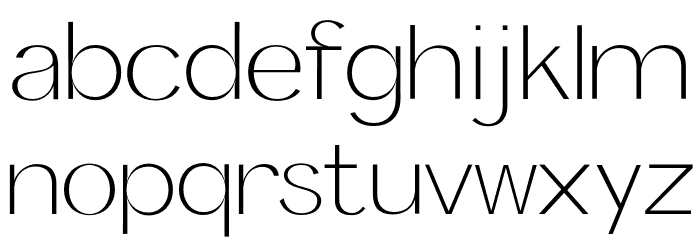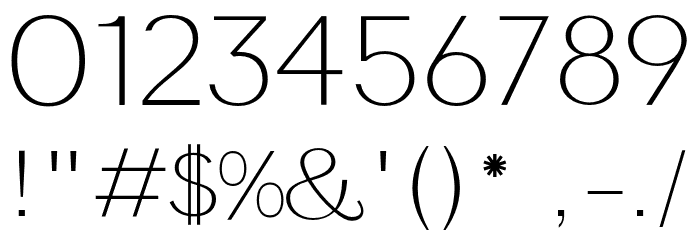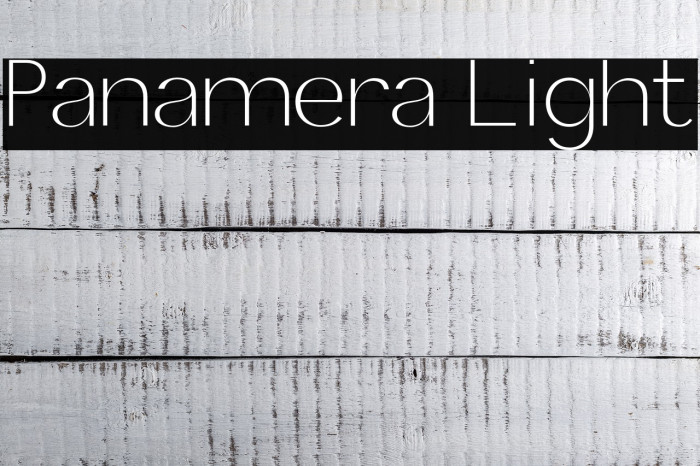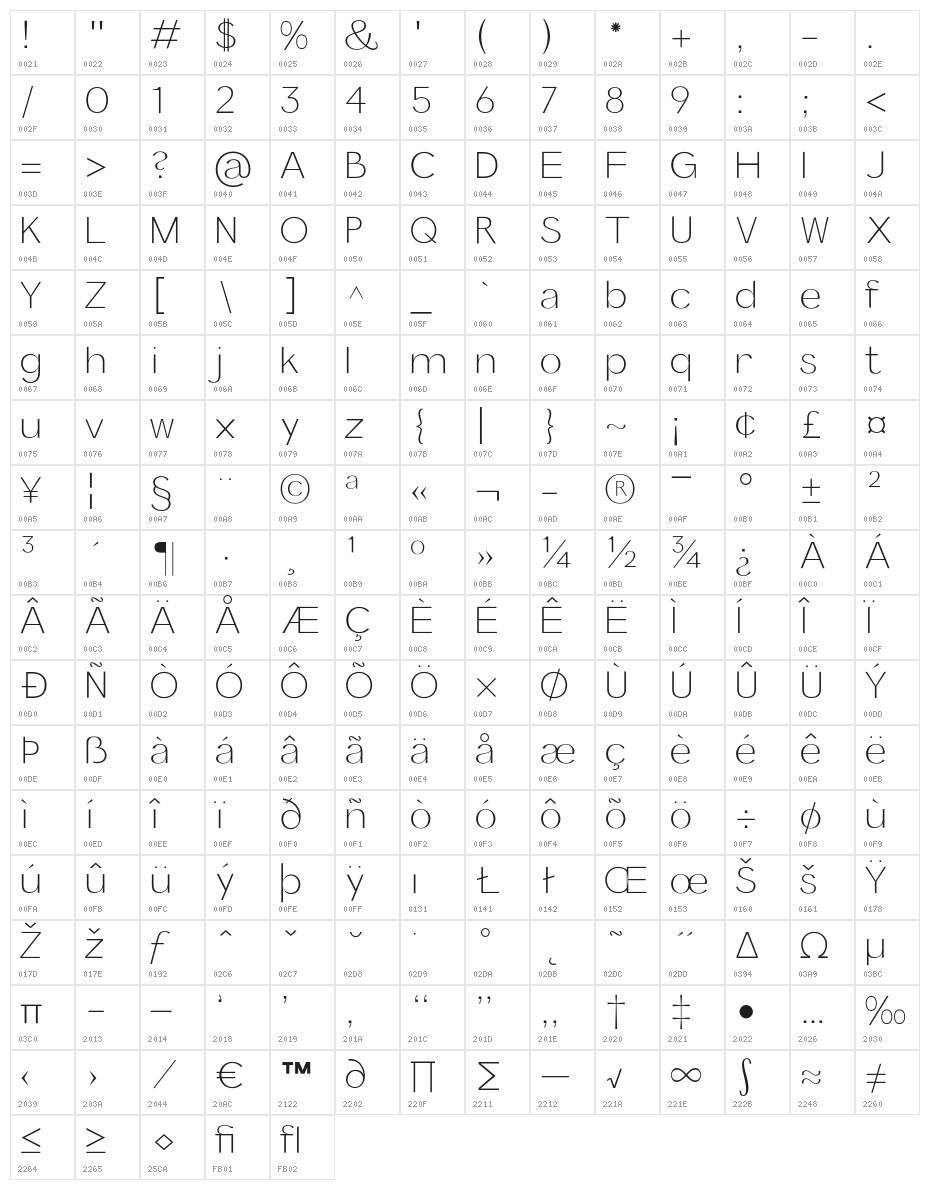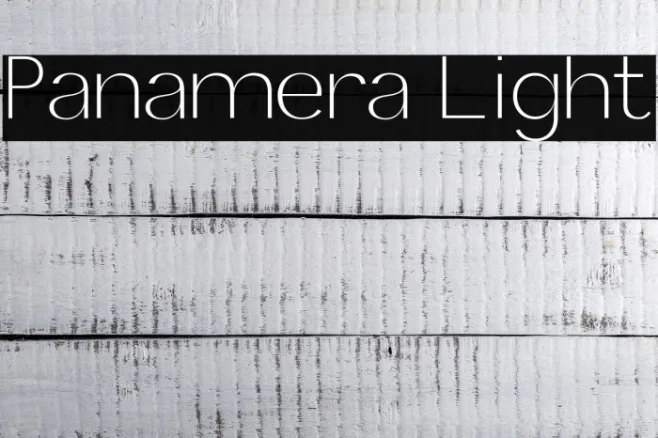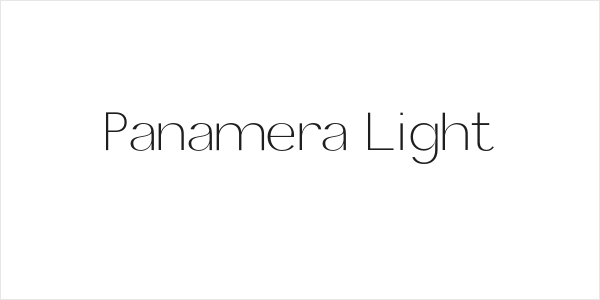
Panamera Light Font
This font is a sleek and modern sans-serif typeface characterized by its clean lines and minimalistic design. The characters are evenly spaced with a consistent stroke width, giving it a uniform appearance. The uppercase letters are tall and elegant, while the lowercase letters maintain a harmonious balance. The numerals are clear and straightforward, making them easy to read. Special characters are designed with the same attention to detail, ensuring they blend seamlessly with the rest of the typeface. This font exudes a sense of sophistication and simplicity, making it versatile for various design applications.
A sleek and modern sans-serif typeface with clean lines and minimalistic design.